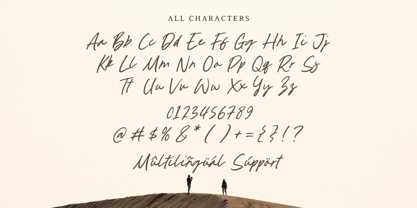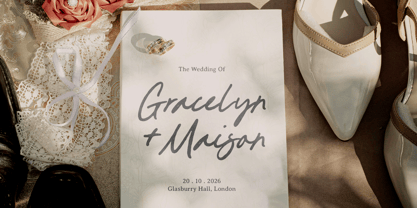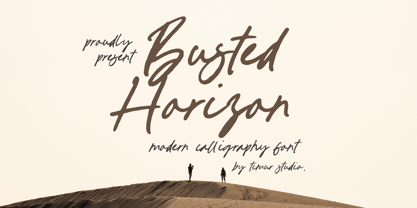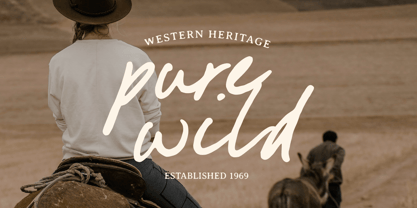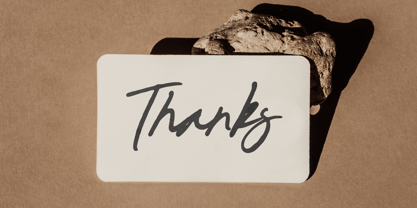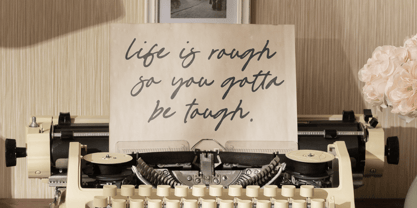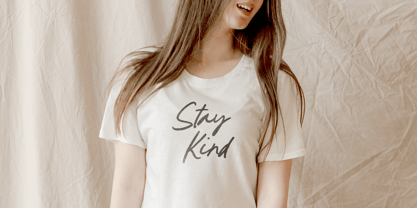
Busted Horizon
by Timurtype
The Busted Horizon Font Family was designed by Wara Sigit Tri Pamungkas and published by Timurtype. Busted Horizon contains 1 styles.
Introduced by Timurtype Studio! Busted Horizon is a Modern Calligraphy Font Busted Horizon is a sleek, modern calligraphy typeface that blends fluid, handbrushed strokes with a contemporary edge. It features graceful, sweeping curves balanced by clean, confident terminals. Ornamented with stylish ligatures and smooth transitions, it’s designed to feel both and polished. Busted Horizon Font also supports multilingualism Enhance your designs with our original fonts, feel free to comment or provide feedback, Enjoy the fonts 😊 Thank You